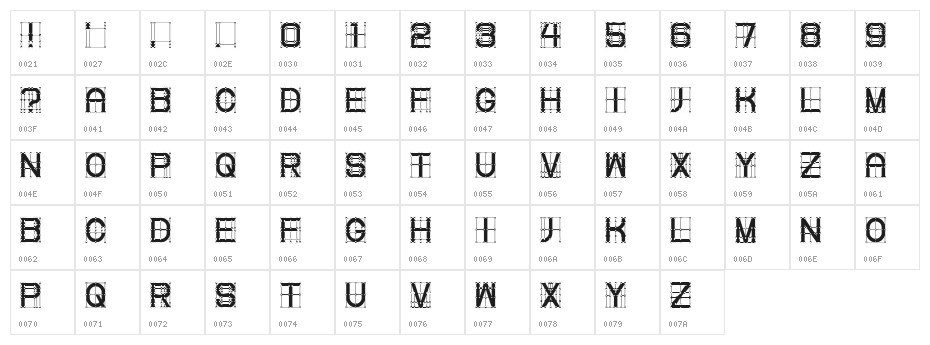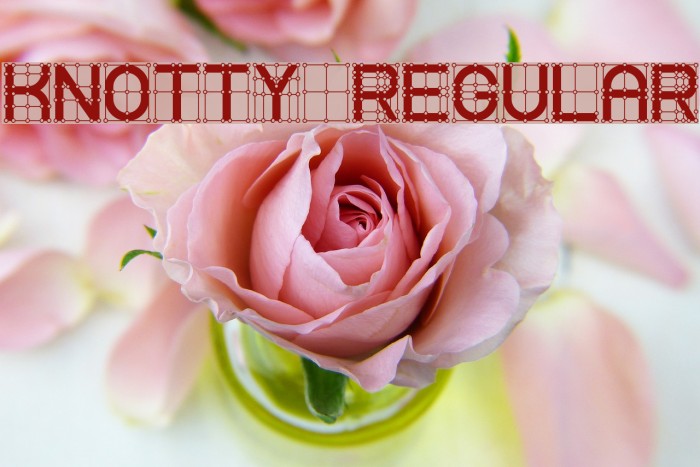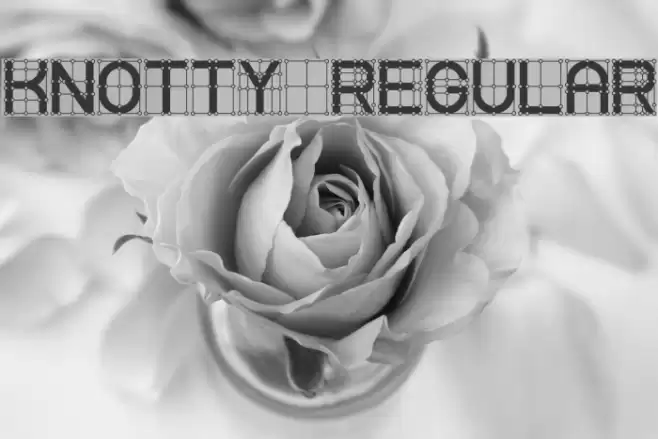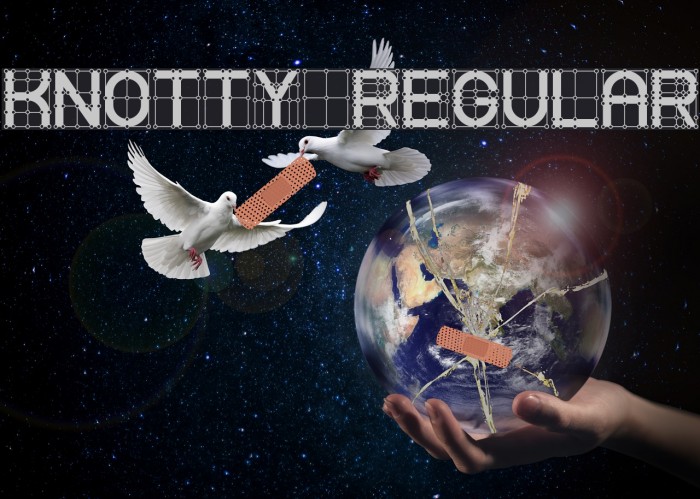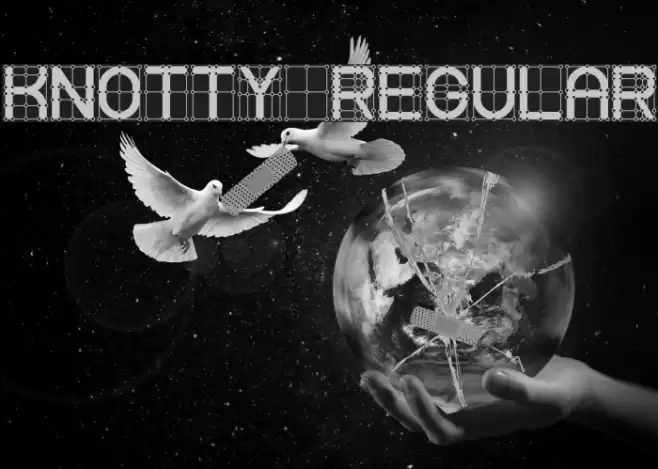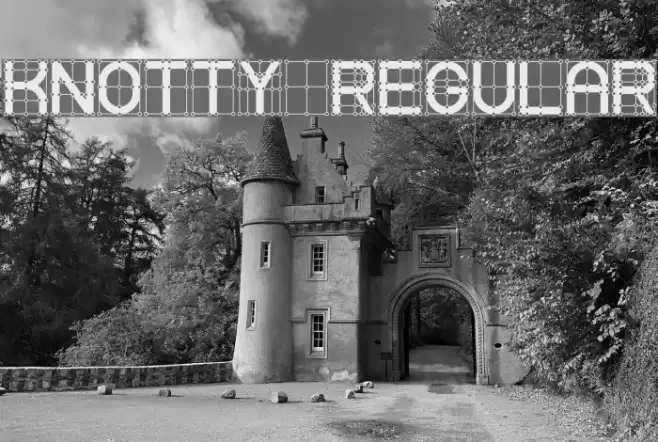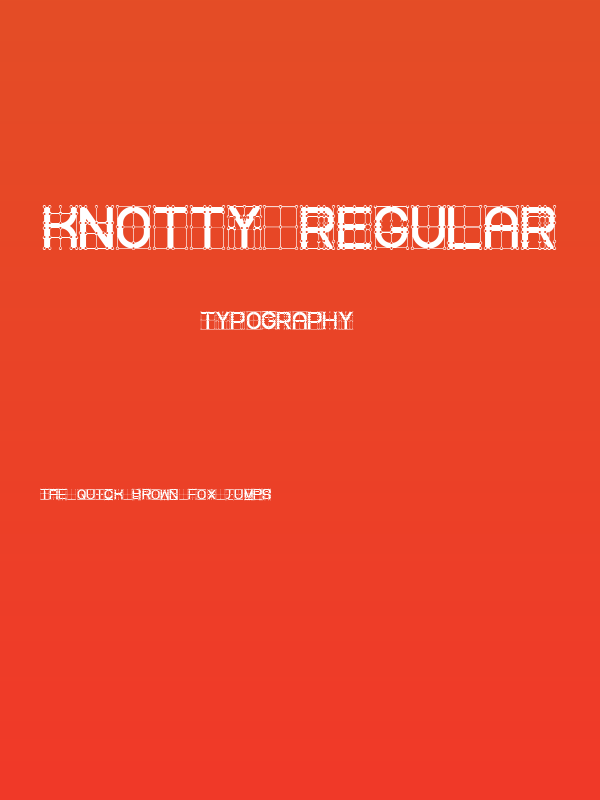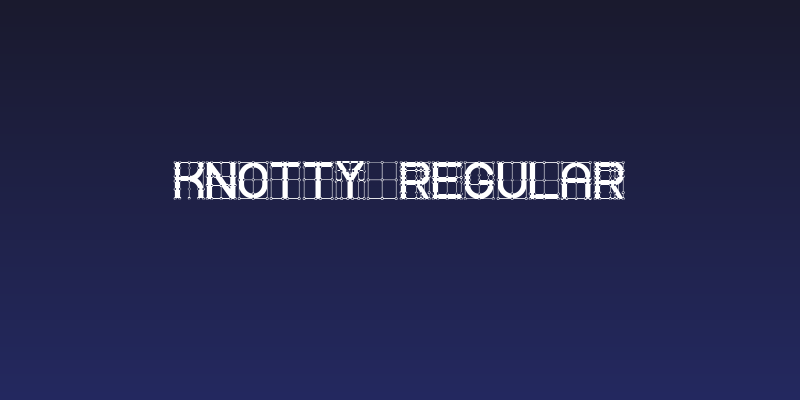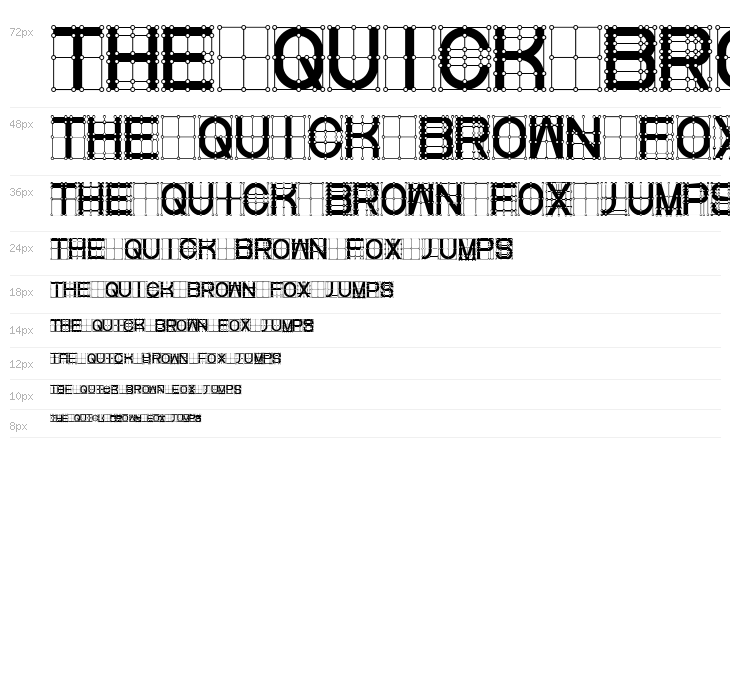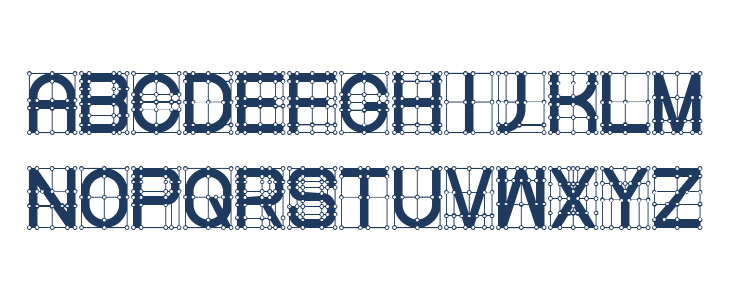
Knotty Regular Font
Knotty Regular Description
This font features a unique, intricate design that resembles a series of interconnected knots or woven patterns. Each character is composed of bold, geometric lines that form a grid-like structure, creating a sense of complexity and depth. The uppercase and lowercase letters maintain a consistent style, with rounded edges and a uniform thickness throughout. The numbers and special characters follow the same design principles, ensuring a cohesive look across all elements. This font's distinct appearance makes it ideal for projects that require a decorative and eye-catching typeface.
| Proposed Projects | Ideal for branding, posters, and artistic projects that require a decorative and unique typeface. |